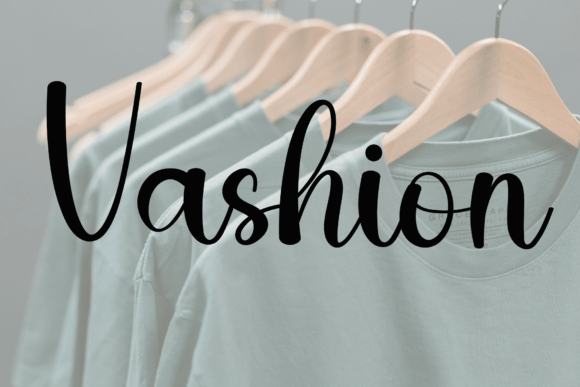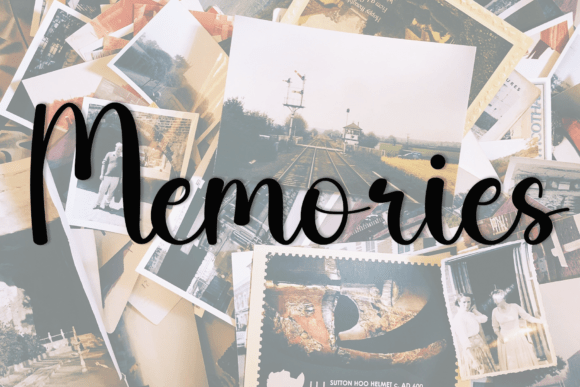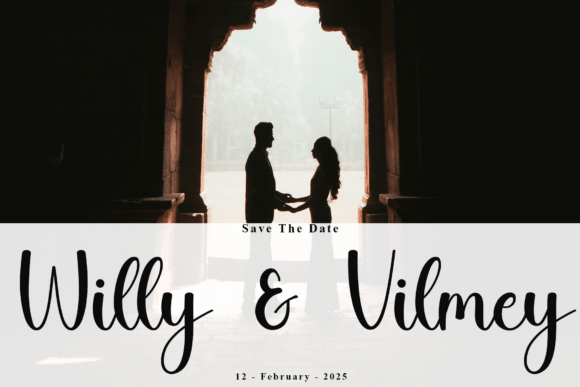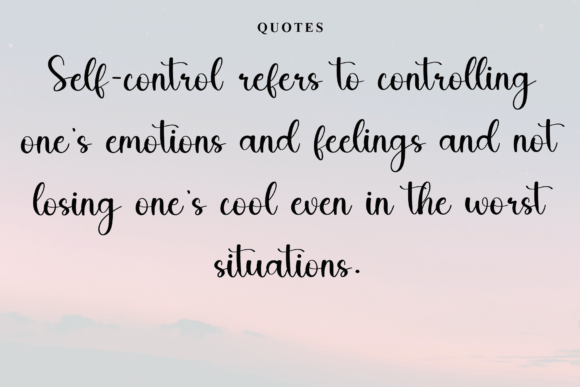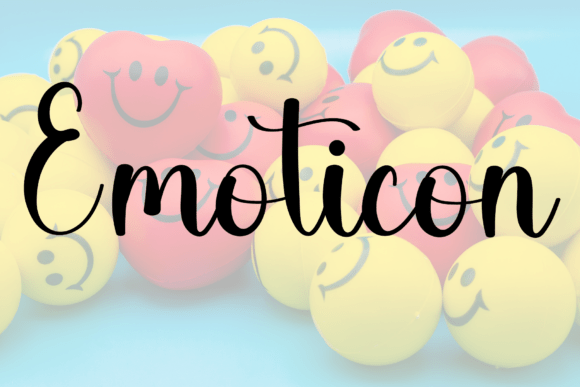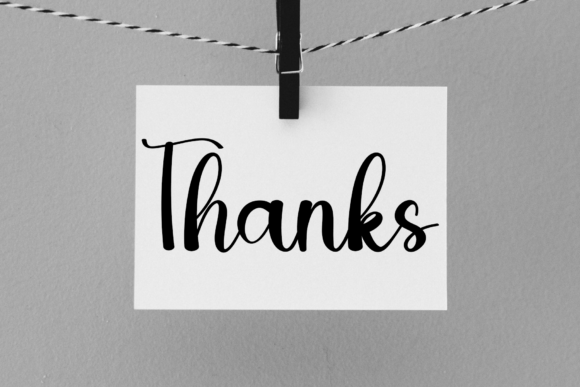
The Elegant Charm of Barbie Font: A Designer’s Delight
I still remember the time I was working on a project for a high-end fashion brand, and I was struggling to find the perfect font to match their luxurious vibe. The client wanted something that exuded elegance and sophistication, but I just couldn’t seem to find the right fit. That’s when I stumbled upon the Barbie font, and it completely transformed my design. In this article, I’ll share my experience with this beautiful font, its features, and how to make the most of it in your design projects.
A Personal Review: What I Love About Barbie Font
The Barbie font has quickly become one of my go-to fonts for projects that require a touch of elegance. Here’s what I love about it:
- ✨ Timeless classic calligraphy: The Barbie font is inspired by traditional calligraphy, giving it a timeless and sophisticated feel.
- ✅ Impeccable form: The font’s clean lines and precise curves make it perfect for designs that require a high level of detail.
- 💫 Contemporary atmosphere: Despite being inspired by classic calligraphy, the Barbie font has a modern twist that makes it perfect for contemporary designs.
- 👍 Elegant and classy: The font adds a touch of sophistication to any design project, making it perfect for luxury brands, fashion designs, and high-end events.
While I love the Barbie font, there are a few quirks to be aware of:
- 🤔 Limited use in body text: Due to its elegant and cursive nature, the Barbie font may not be the best choice for body text. It’s better suited for headings, titles, and short paragraphs.
- ⚠️ Requires careful kerning: As with any script font, kerning can be a bit tricky. Make sure to adjust the kerning to ensure the text looks smooth and even.
The Backstory of Barbie Font
The Barbie font was designed by a team of typographers who wanted to create a font that combined the elegance of traditional calligraphy with the modernity of digital design. Inspired by the classic calligraphy of the past, the Barbie font was crafted to bring a touch of sophistication to any design project.
| Font Name | Barbie Font |
| Author | Black line |
| What is the Barbie font inspired by? | The Barbie font is inspired by timeless classic calligraphy. |
| Is the Barbie font suitable for body text? | No, the Barbie font is better suited for headings, titles, and short paragraphs. |
| Is the Barbie font easy to read? | Yes, the Barbie font is designed to be elegant and easy to read, making it perfect for designs that require a touch of sophistication. |